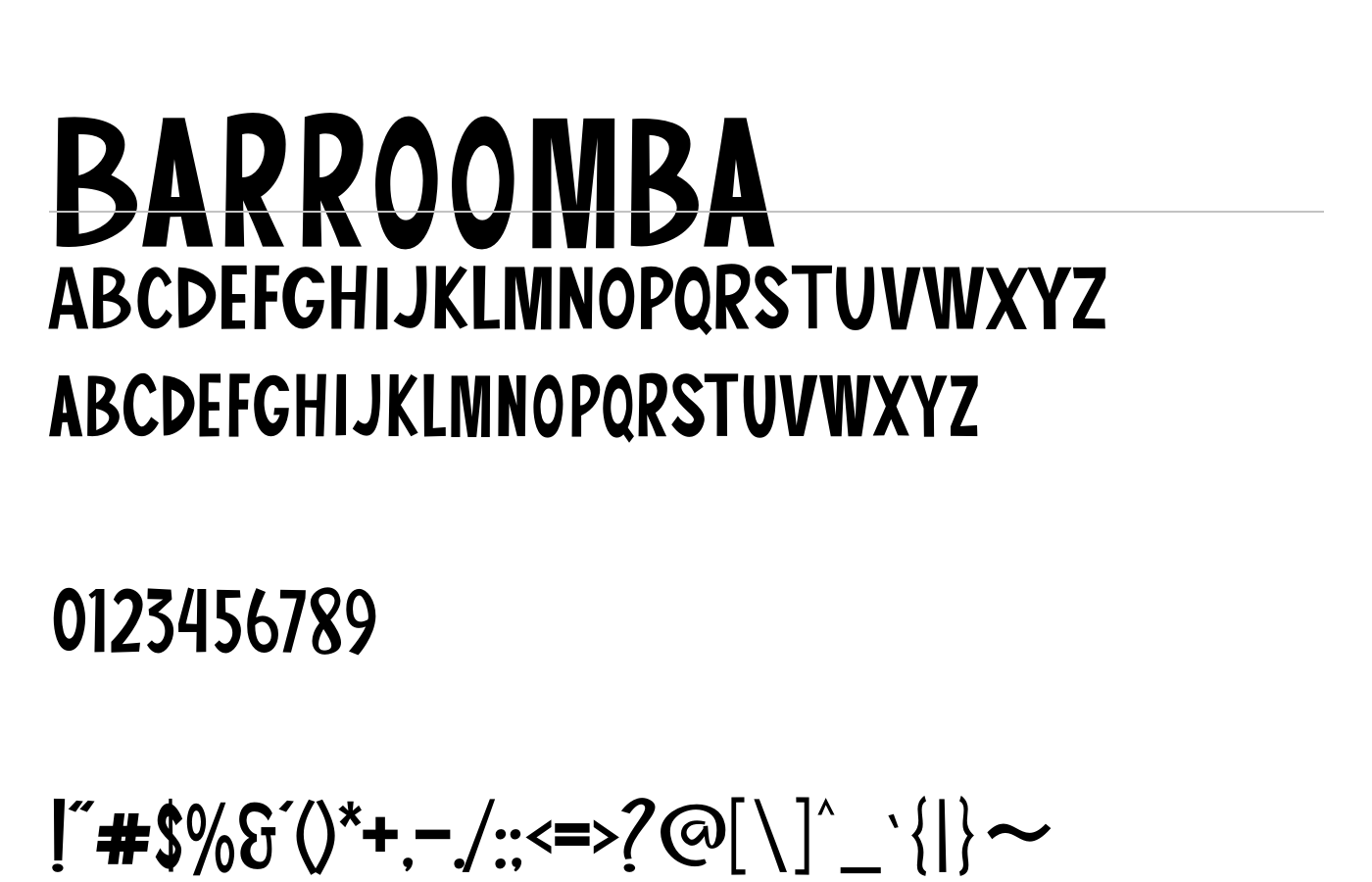
Barroomba is a playful and bold sans serif font with a unique, slightly condensed shape and lively letterforms that give it a friendly and approachable feel. Its consistent stroke weight and quirky details make it ideal for eye-catching headlines, logos, and branding where a fun, informal personality is desired. This font works well in creative contexts, helping brands or projects stand out with charm and energetic style.
Barroomba Font
About Barroomba Font